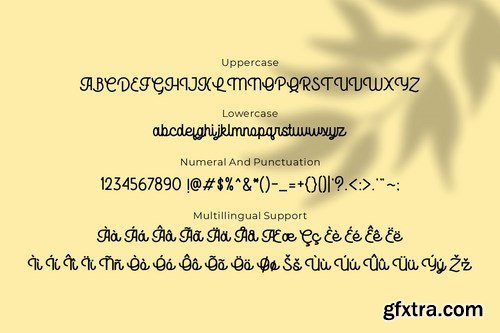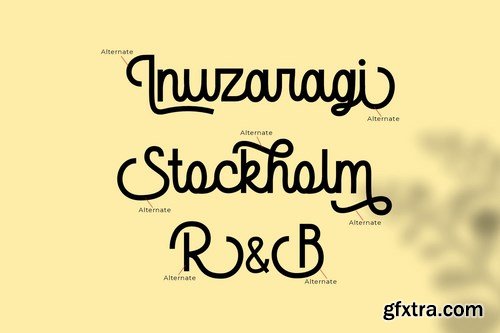
Marylane, a monoline script font that's great for headline, logo, poster, signage, and more. It supports basic latin multilingual characters and you can also customize with alternates character into the words that great for you.